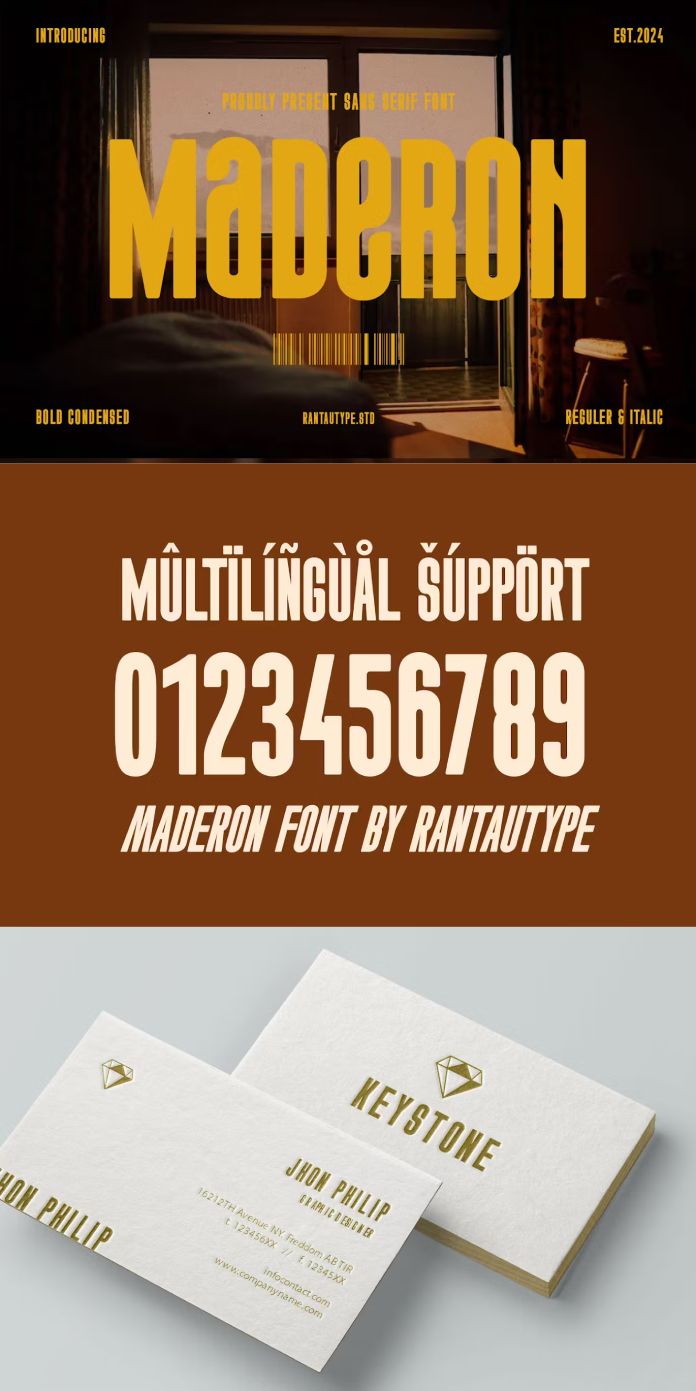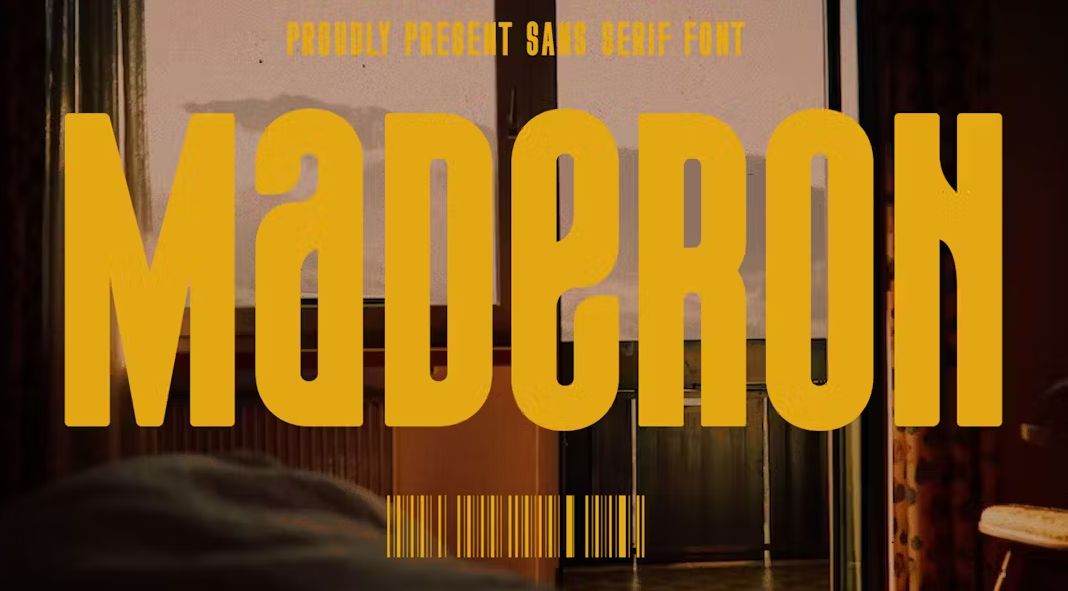
Maderon: A Bold and Playful Display Font by Rantautype
In the realm of typography, there exists a special category of fonts that transcend the boundaries of mere text, transforming into captivating visual elements that demand attention and elevate designs to new heights. Maderon, a creation by the talented Rantautype, is one such font that effortlessly embodies this transformative power.
Maderon is a robust and condensed display font that exudes a retro charm, reminiscent of a bygone era where typography played a starring role in capturing the essence of a brand or message. Its rounded edges and bold strokes lend an air of playfulness and approachability, while its condensed nature ensures that it remains impactful even when used in smaller sizes.
Gotens: A Refined Take on Maderon’s Retro Charm
For those seeking a touch of elegance and sophistication, Maderon offers the Gotens variation. This refined form retains the signature characteristics of Maderon, such as its rounded edges and condensed structure, but introduces a touch of sharpness and precision that elevates its visual appeal. The distinctive shapes of the letters, particularly in the display styles, ensure that Gotens remains highly legible even in modern applications.
A Unique Blend of Uppercase and Lowercase
One of the most striking features of Maderon is its unique approach to the relationship between uppercase and lowercase letters. In Maderon, the lowercase characters share the same height as their uppercase counterparts. This unconventional pairing opens up a world of creative possibilities, allowing designers to seamlessly mix and match the two sizes to create visually captivating layouts.
Versatility for Endless Design Possibilities
Whether you’re crafting retro or vintage designs, seeking to elevate lifestyle branding, or simply looking to add a touch of personality to logos, titles, covers, branding, displays, business cards, magazines, posters, or even film and movie projects, Maderon proves to be an invaluable tool in your creative arsenal. Its versatility and charm know no bounds, empowering designers to bring their visions to life with captivating typography.
Enhance Your Designs with Maderon
Embrace the power of Maderon and let its unique blend of retro charm, modern sensibilities, and playful versatility transform your designs into captivating masterpieces. With its extensive language support, Maderon is ready to accompany you on your creative journey, no matter where it takes you.
Additional Features:
- Alternative characters
- Ligatures
- Multilingual support